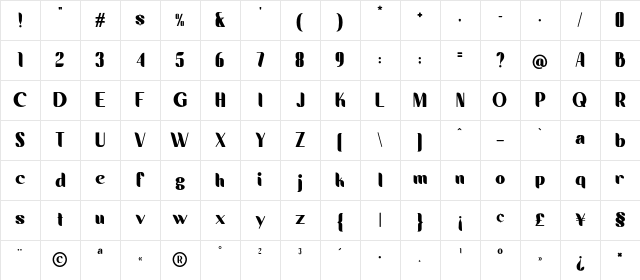
Laksmi Bold Free Font
Laksmi Bold
Foundry: Dotzeem
Designer: Hazim Mujahid
Design Context for Laksmi
Laksmi is a composed and adaptable typeface that performs quietly and consistently across a wide range of design contexts. Its bold stroke weight gives it real presence on the page.